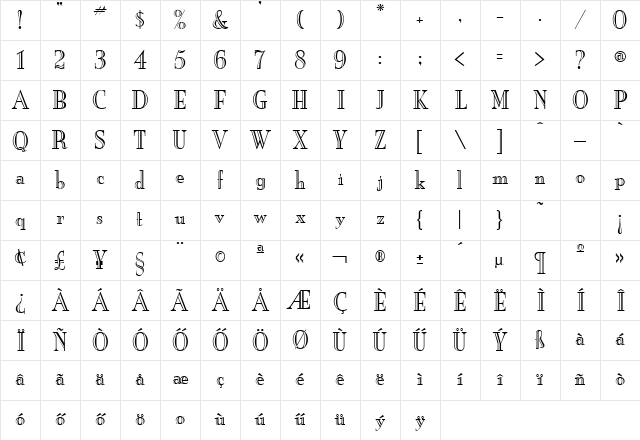
Mona Lisa Recut Hu Normal
Design Context for Mona Lisa Recut Hu
Mona Lisa Recut Hu is a composed and adaptable typeface that performs quietly and consistently across a wide range of design contexts.